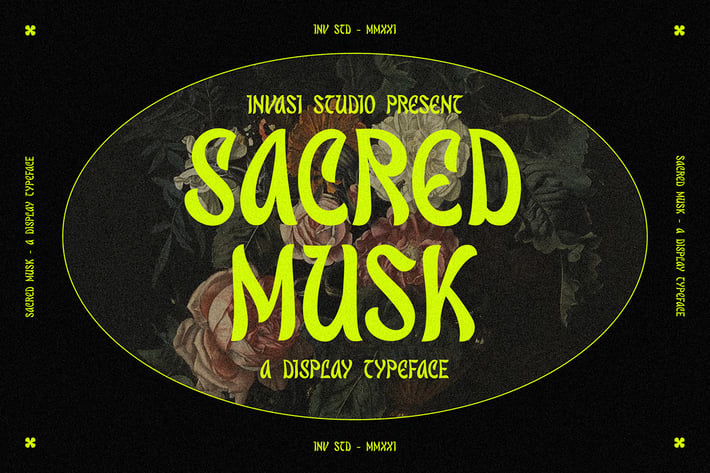
Sacred Musk | Display Font
Introducing a Retro vibes font, the Sacred Musk inspired by psychedelic. Sacred Musk with retro, bold, and playful design.
Sacred Musk is a great font for achieving an authentic retro aesthetic as seen in the display images project, it is perfect for headings, flyers, greeting cards, product packaging, book cover, quotes, logotype, apparel design, album covers.